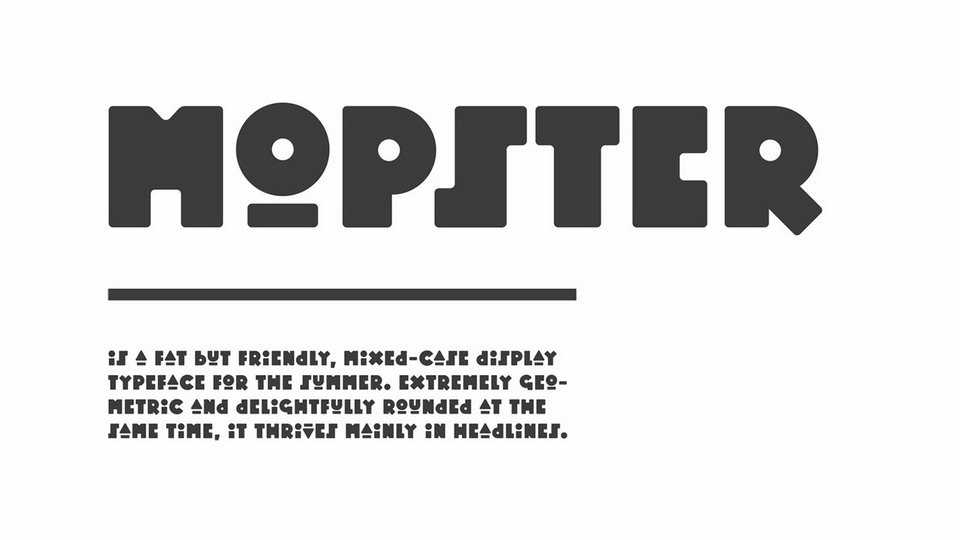
Downaload Mopster, a fat but friendly, mixed-case display typeface for the summer. It’s extremely geometric and delightfully rounded at the same time, it thrives mainly in headlines.
Designer: Akos Polgardi